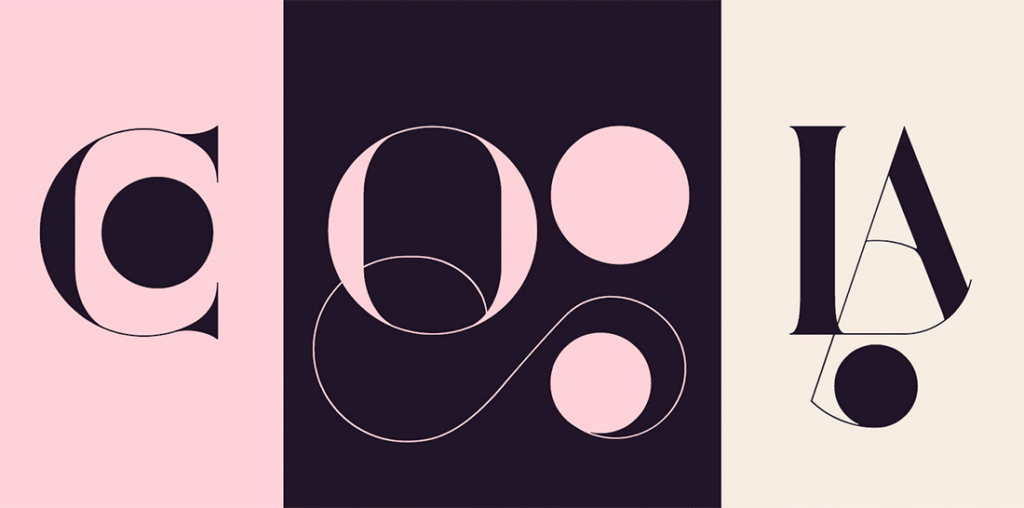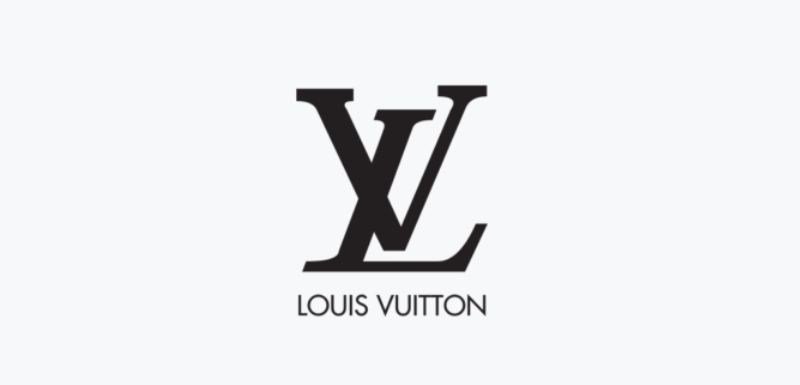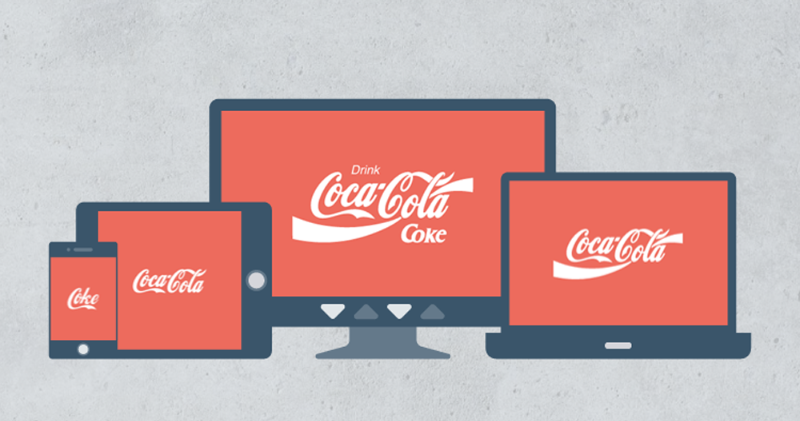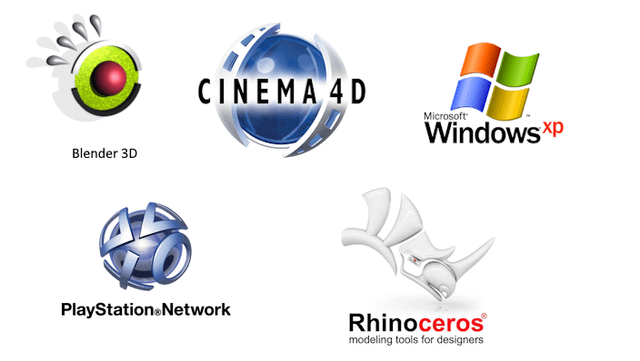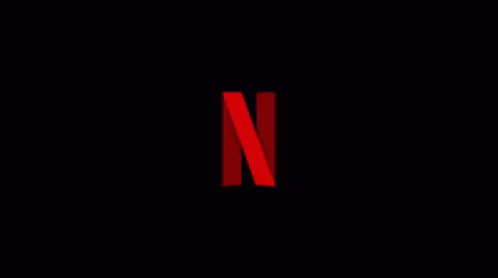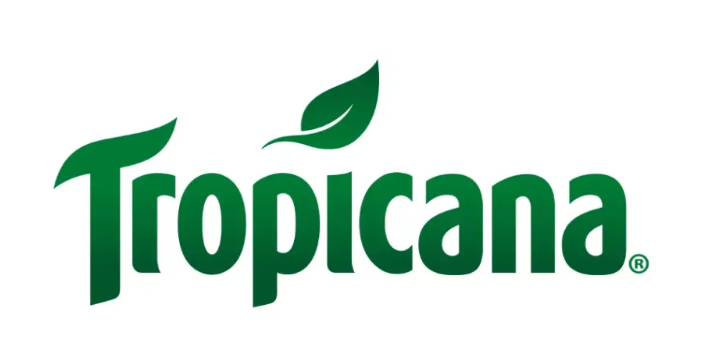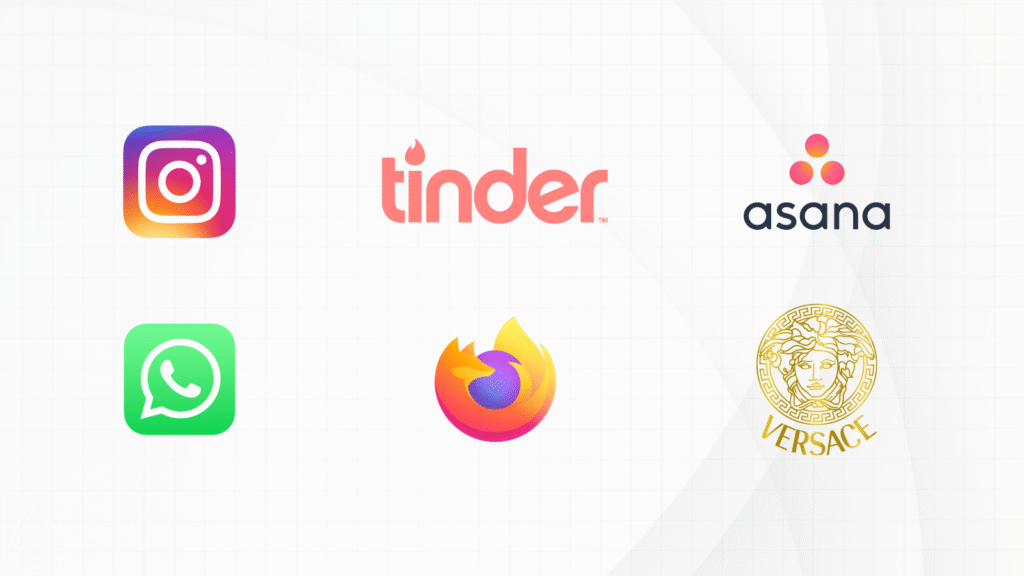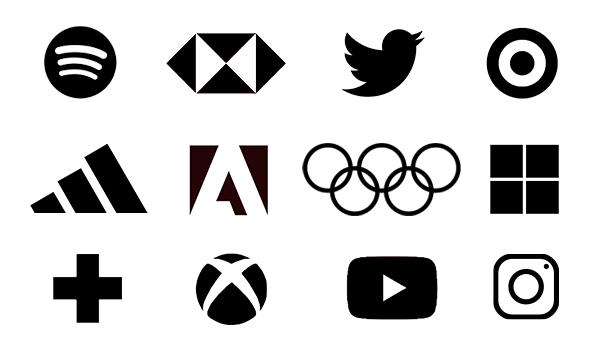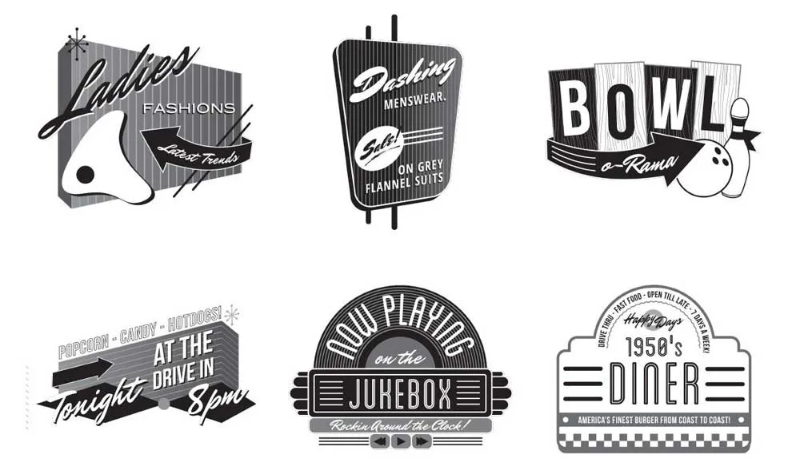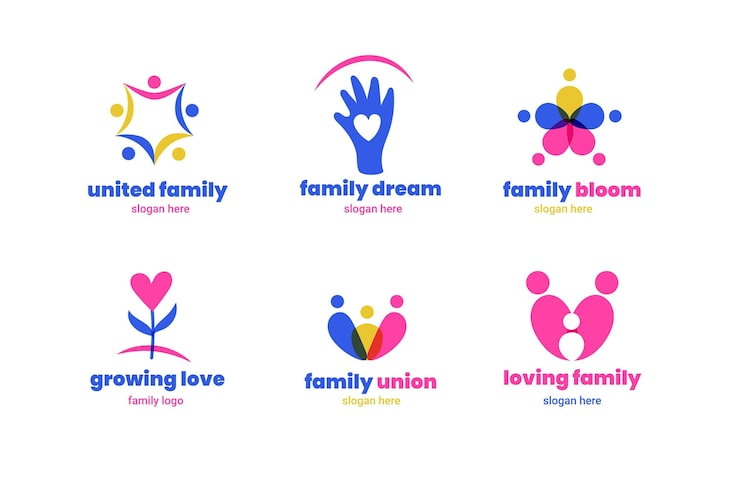
10 Promising Trend Logo Ideas for the Creative Industry in 2025
Promising Trend Logo Ideas for Creative Industry in 2025
In 2025, understanding the latest trend logo designs has never been more important for brands looking to succeed. A recent report by Cropink shows that 75% of consumers can identify a brand just by its logo, highlighting its crucial role in brand recognition. As branding evolves rapidly, keeping up with logo trends is essential for maintaining market position.
Key Takeaways
• Trend logos in 2025 range from minimalist to experimental typography.
• Adaptive, 3D, and motion designs enhance brand recognition online.
• Bold colors, retro, and inclusive logos strengthen emotional connections.
10 Lists of the Best Logo Design Trends of 2025 as Inspirations
Below, we’ve curated ten trend logo concepts to ignite new creative directions for your brand identity. These examples demonstrate how modern design can make a brand more distinctive. So, follow through to discover fresh inspirations!
1. Experimental Typography
By experimenting with letterforms, designers can transform text into bold visual statements. Consequently, brands adopting this style become instantly recognizable. It adds a playful and artistic personality to logos.
Equally important, breaking conventional typography rules encourages memorability. Creative startups and fashion brands benefit most from this expressive approach. It turns ordinary text into dynamic storytelling.
2. Minimalist Logos
Through simplicity, minimalist logos communicate clarity and focus. As a result, they remain versatile across platforms, from tiny app icons to large signage. Their elegance ensures timeless relevance.
Notably, minimalism allows brands to convey professionalism without clutter. Even subtle adjustments maintain impact. Therefore, this style blends efficiency with aesthetic appeal effortlessly.
3. Adaptive and Responsive Logos
Thanks to adaptability, responsive logos adjust seamlessly across screens and mediums. This ensures recognition whether viewed on smartphones, websites, or billboards.
Similarly, responsive designs reflect a thoughtful, user-centered approach. This flexibility becomes a subtle yet powerful advantage to make brands appear professional and tech-savvy.
4. 3D and Depth Elements
Next, 3D effects become one of the promising current logo design trends that adds dimension and a tactile feel to logos. These techniques produce dynamic, engaging visuals that perform beautifully in both digital and print formats. The added depth immediately elevates visual interest.
Moreover, shadows, layering, and gradients enhance realism and sophistication. Brands leveraging this trend appear innovative and modern. So, it’s a visually compelling approach that captures attention quickly.
5. Animated and Motion Logos
Through subtle animation, logos gain life and interactivity. Simple movements like swipes, fades, or rotations create instant engagement, effectively communicating energy and innovation to viewers.
In addition, animation enhances storytelling in digital spaces. Apps, social media, and websites benefit from this dynamic expression to leave memorable impressions in seconds.
6. Nature-Inspired and Organic Shapes
Nature-inspired Logo | Image Source: inkbotdesign.com
Drawing from natural forms, this trend logo concept feels authentic and approachable. Curves, textures, and organic lines evoke warmth and sustainability. They resonate strongly with eco-conscious audiences.
Likewise, implementing natural elements fosters emotional connections for brands to appear genuine and trustworthy. In short, this trend combines simplicity with meaningful design effortlessly.
7. Bold Colors and Gradients
With bold hues and smooth gradients, logos capture attention immediately. Vibrant colors convey energy, creativity, and personality. This approach ensures designs remain visually striking.